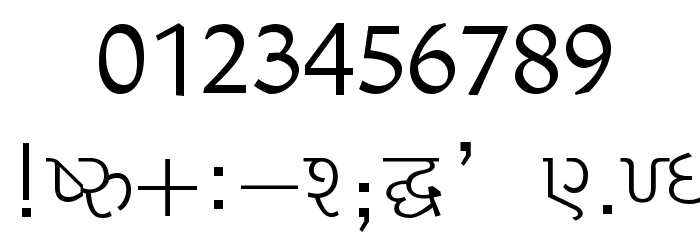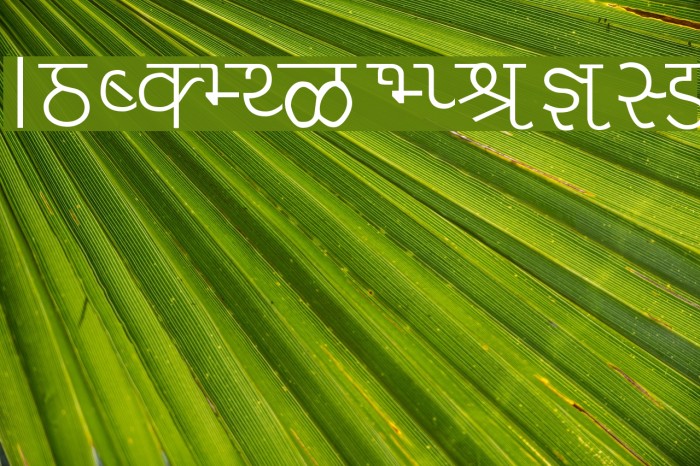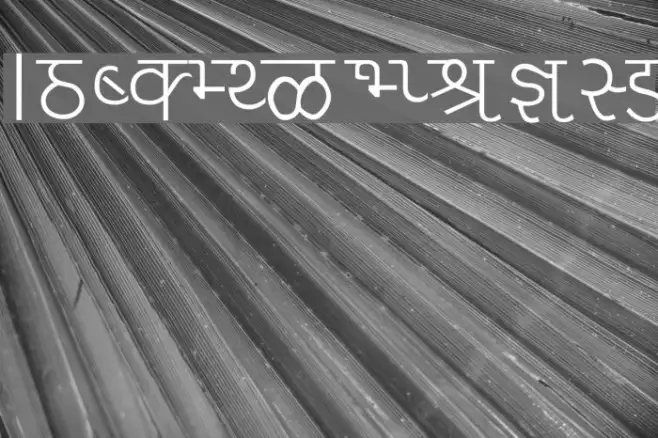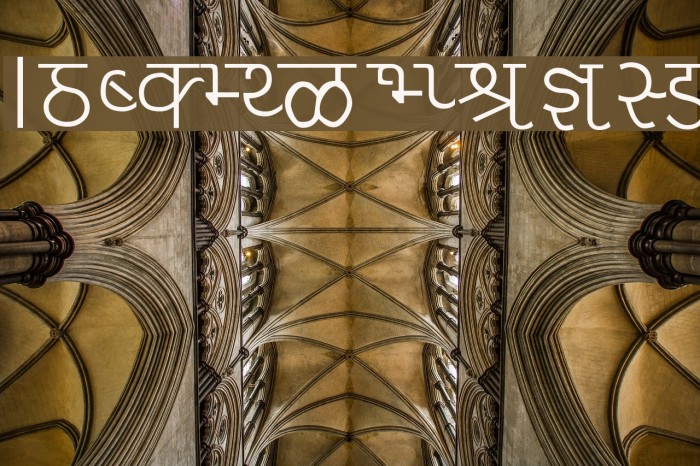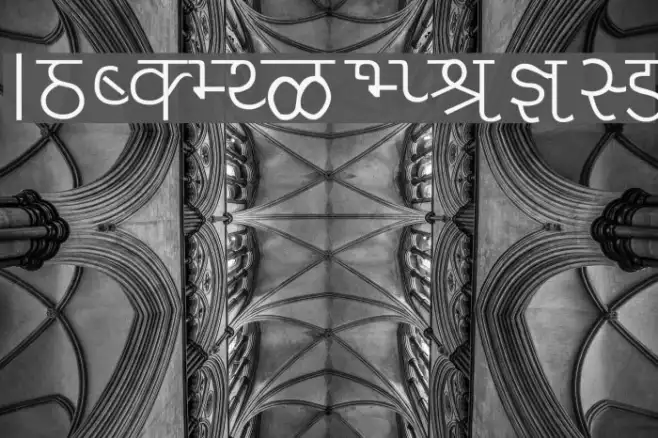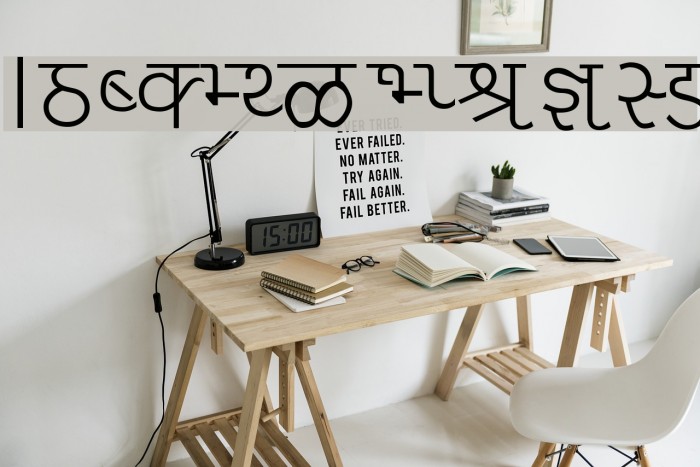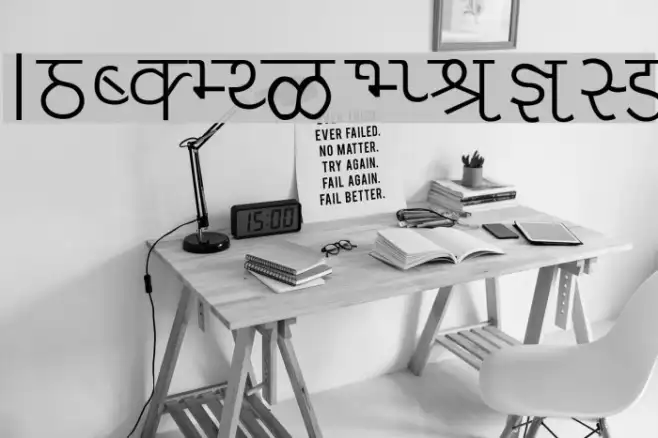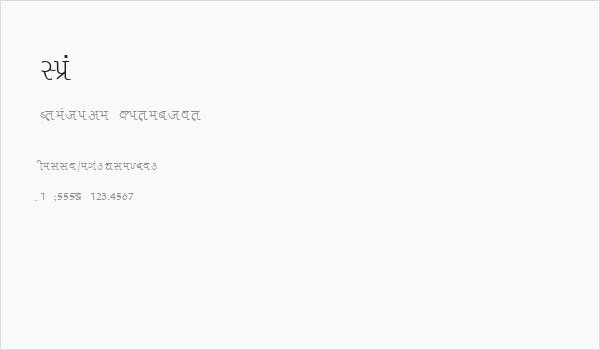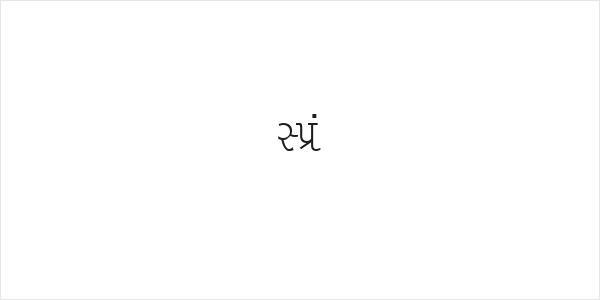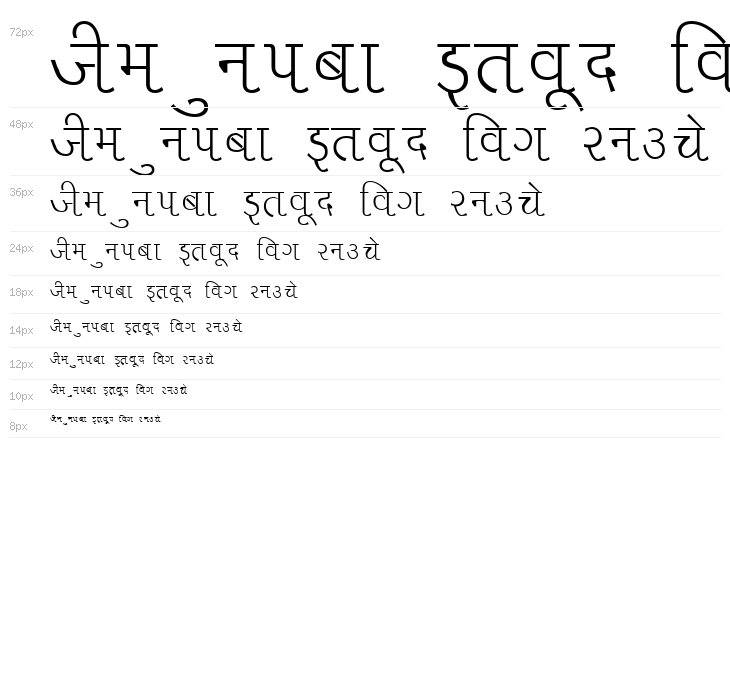
Liza Font
Liza Description
This font is a Devanagari script characterized by its elegant and traditional design. The characters are well-defined with a balanced stroke width, providing a clear and readable appearance. The numerals are distinct and align well with the overall style of the script. The special characters are crafted to complement the Devanagari letters, maintaining a cohesive look throughout. This font is suitable for both digital and print media, offering versatility in various applications. Its classic style makes it ideal for projects that require a touch of cultural authenticity and sophistication.